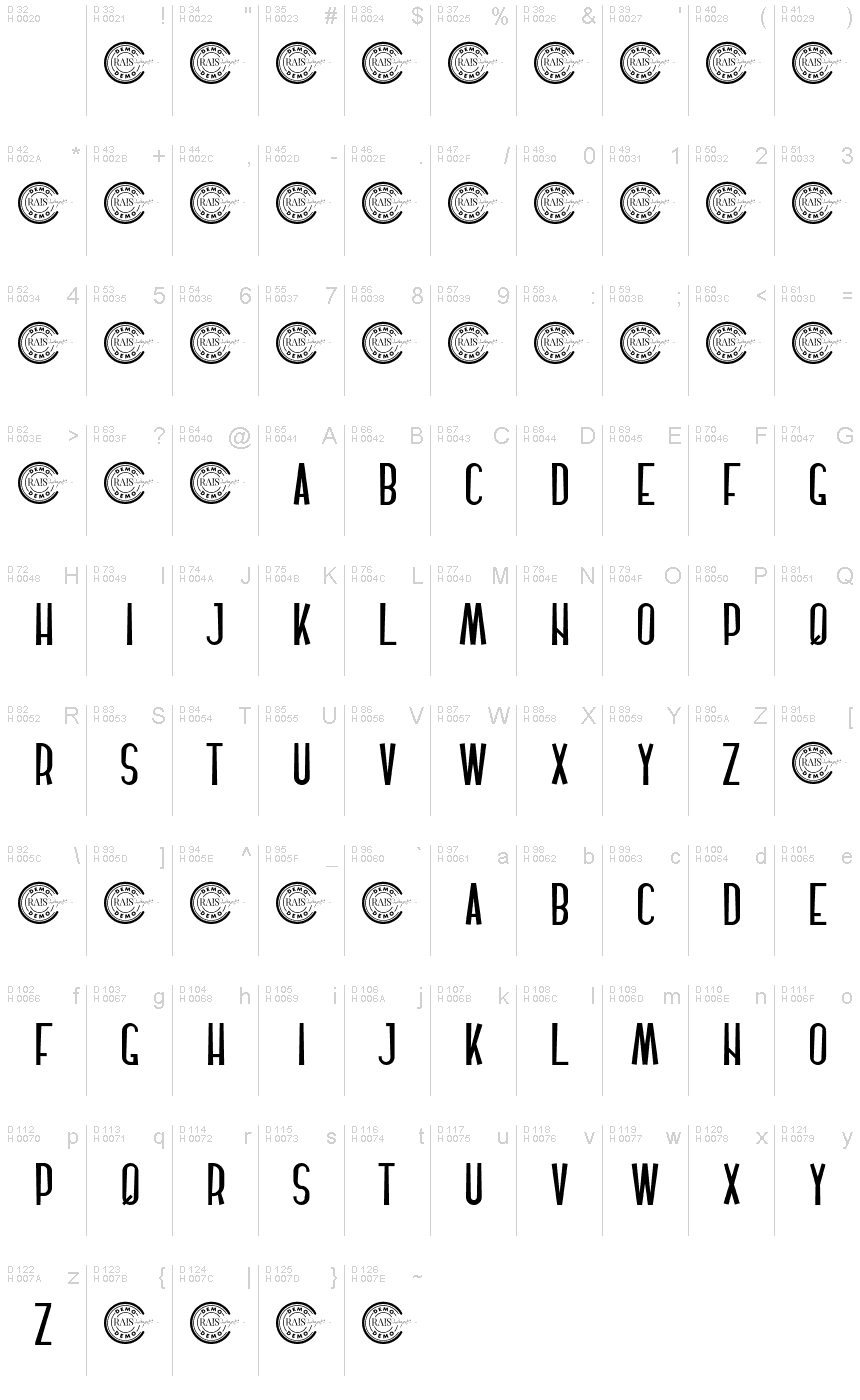
Haiterbach Demo Bold
Haiterbach Bold is a striking sans serif font designed by RaisProject. Its semi-light weight and extra-condensed width make it perfect for sleek, modern projects that require a bold statement. Use this font for fashion magazines, edgy branding campaigns, or tech startups looking to make a statement. The clean lines and minimalist design of Haiterbach Bold will add sophistication and style to any project it's used in. With its unique personality and versatility, this font is sure to captivate your audience and leave a lasting impression.